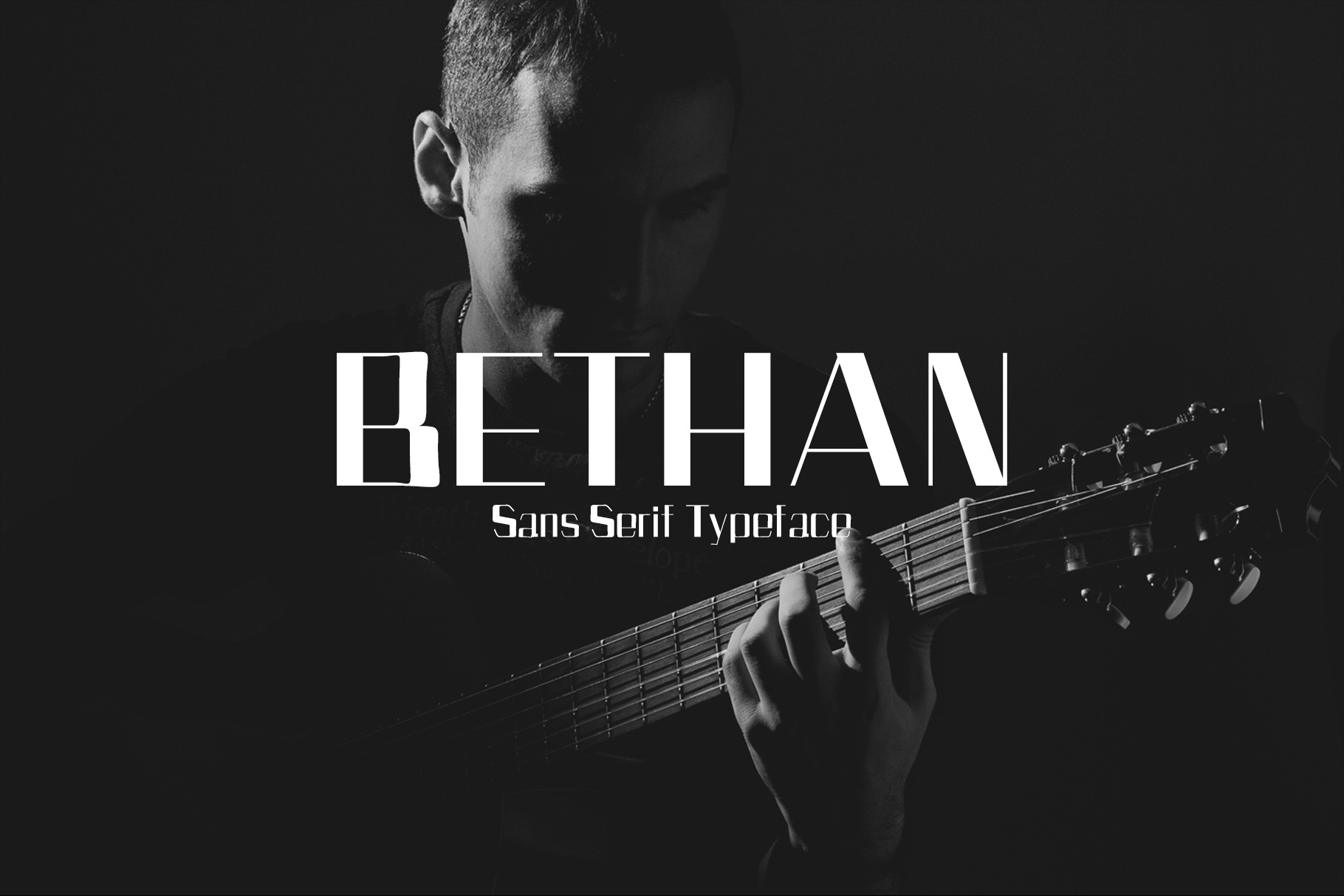
Bethan Sans Serif Font Family Pack
Bethan Sans Serif Font Pack is a set of 4 weights and it is good for making creative displays and it has art-deco touch. It’s a lovely and unique sans serif font in our store, allowing you to make each word look completely stylish! It Suits best for modern / clean designs, logos, headlines, banners and templates etc. It looks gorgeous in all caps with a wide-set spacing if you want to try a classy look, or beautiful on its own in capital and lowercase letters for something completely timeless.
Bethan Font Features:
- Uppercase Letters
- Lowercase Letters
- Non English Characters ( Latin Supplement + Latin Extended A)